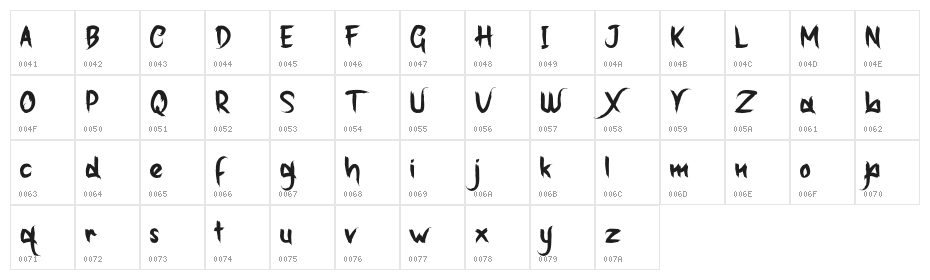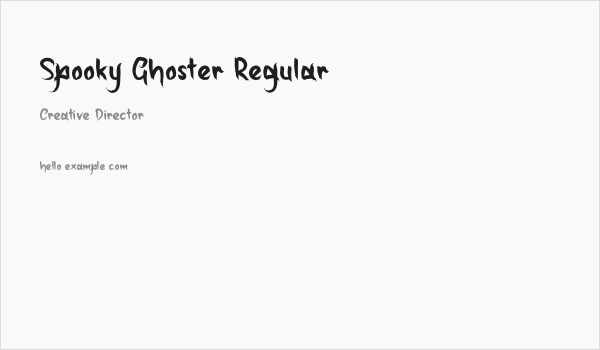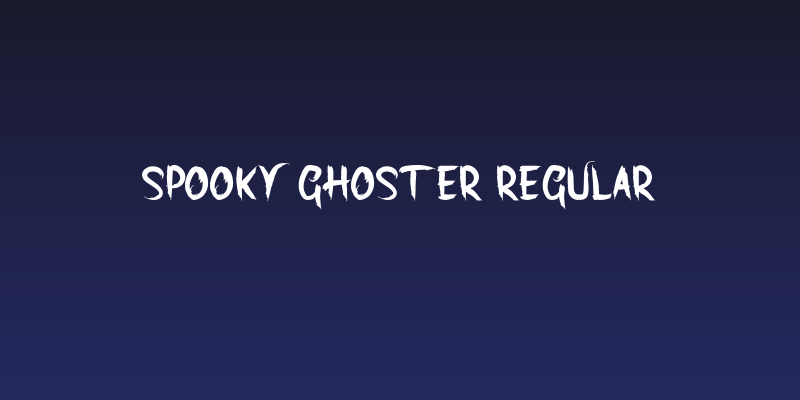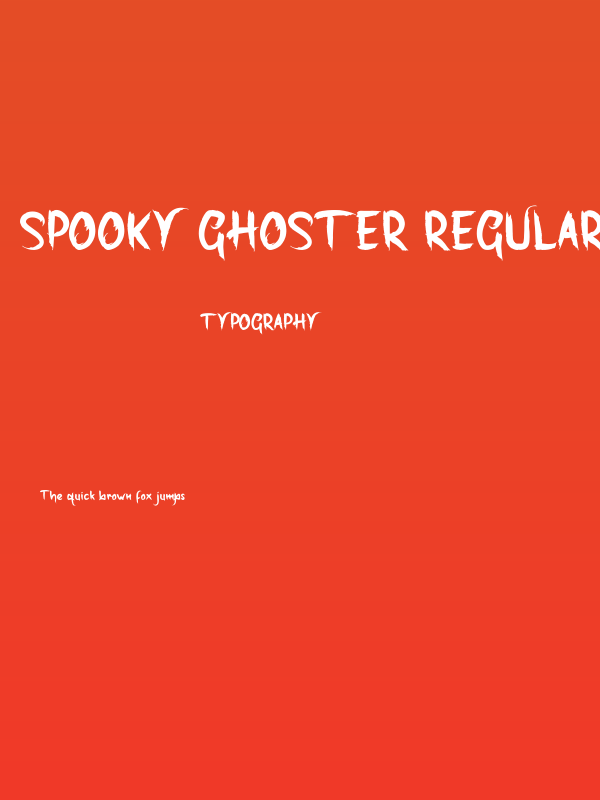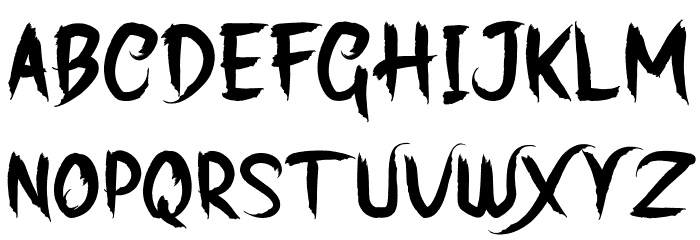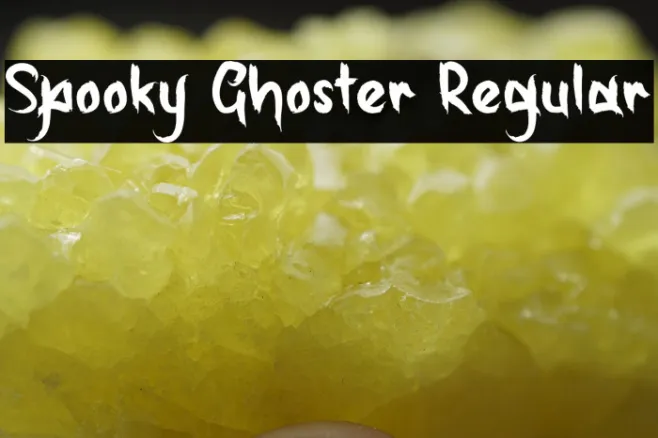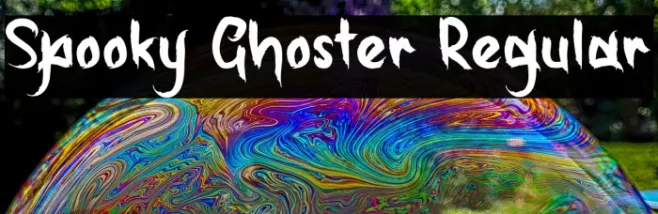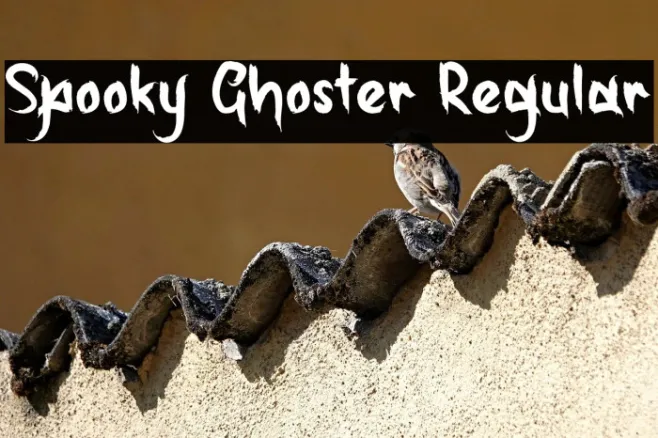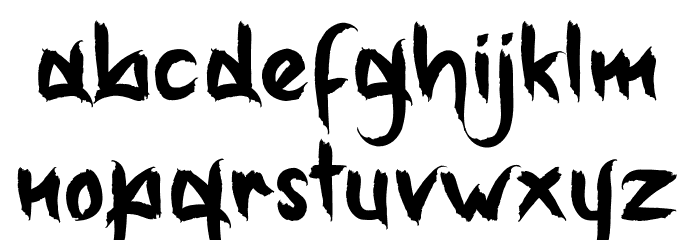
Spooky Ghoster Regular Font
Spooky Ghoster Regular Description
This font exudes a spooky, ghostly vibe with its jagged, irregular strokes and sharp edges. The characters appear as if they have been hastily painted with a brush, giving them a dynamic and eerie appearance. The uppercase and lowercase letters maintain a consistent style, with exaggerated curves and points that enhance the haunted aesthetic. The numbers and special characters follow the same theme, ensuring a cohesive look across all text. This font is perfect for Halloween-themed projects or any design that requires a touch of the supernatural.
| Proposed Projects | Ideal for Halloween invitations, horror movie posters, haunted house flyers, and themed merchandise. |